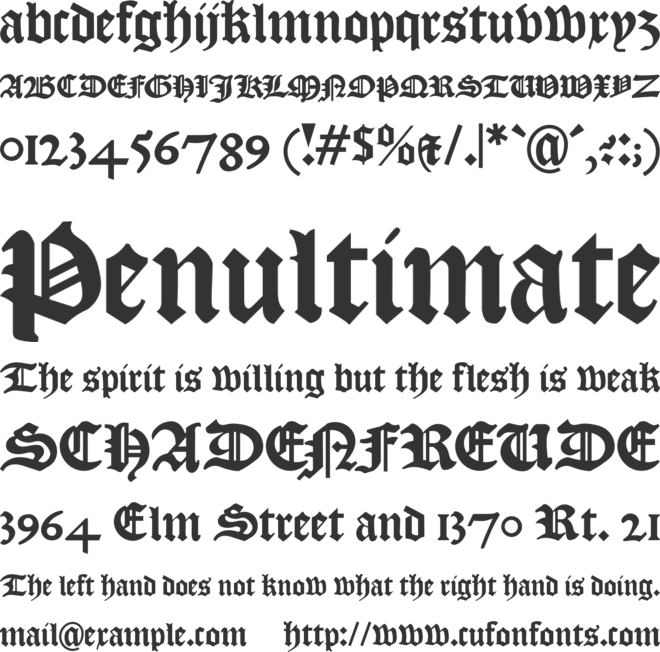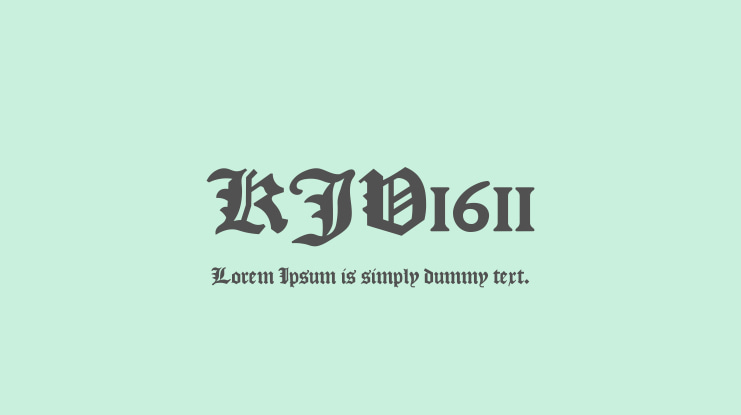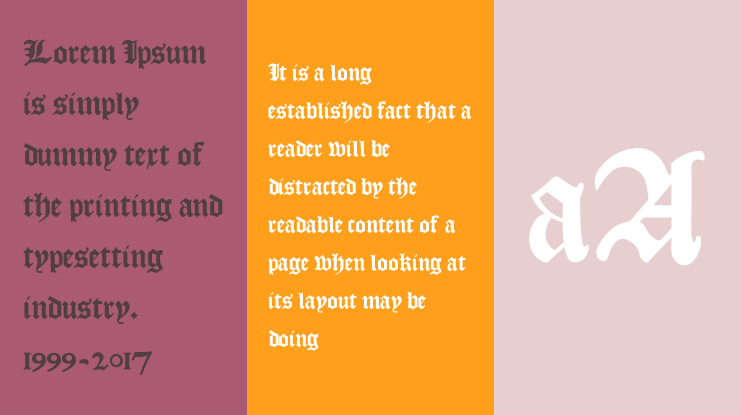
KJV1611 Font
This font is a libre digital recreation of the font found in one of the moſt famous books in the Engliſh language, the 1611 King James Verſion of the Holy Bible. It is licenſed under the S.J.L Open Font Licenſe.
This font can be used to typeset both in the medieual spelling style, or in the modern style. The alphabet is not static ; some glyphs that we use today did not exist in the 17th century. For example, capital “V”, capital “I”, and the “@” sign. Based on other blackletter fonts made by contemporaries of the scribes, and other modern recreations of other blackletter fonts, I made up glyphs for these modern symbols/letters.
The King James Bible was typeset by publishing houses contracted by Robert Barker, who at the time was the King’s Publisher. Barker had a monopoly on the printing of the King James Bible, as well as the Geneva Bible and Bishop’s Bible. There seems to be a bit of a mystery around who actually drew the font : it looks very similar to a font called alternately “Pica Textura” or “Texte Flamand”, sold by the publishing house of one Mr. Hendrik van der Keere. However, he died in 1580 : some letters, such as “A” and “Y” are notably different than how he would haue written them. Another possibility is that the font was made by Wolfgang Hopyl. A third possibility still is that the font was made by Barker or an associate of his in imitation of the styles of those two men, as works printed by them were popular in England at the time.